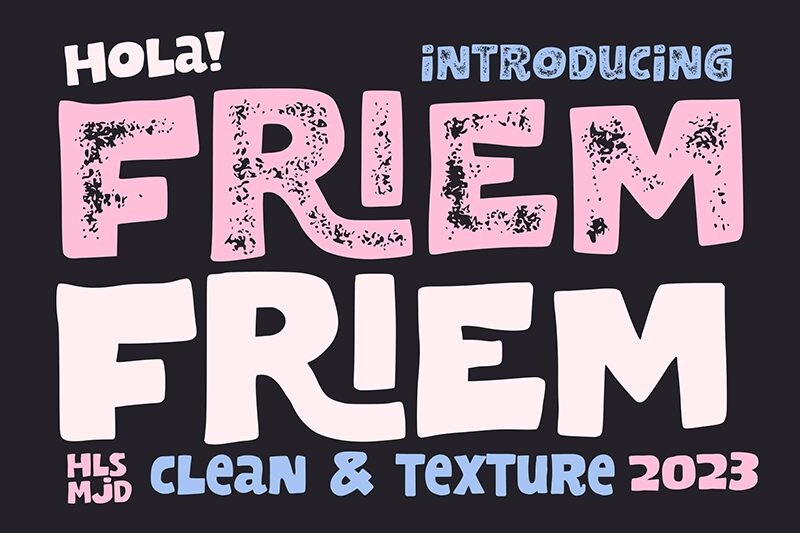
Friem
Friem font by Holisfonts.com is a bold cartoon display, accented by its rounded irregular shapes, casual appearance, and organic feel. A contemporary typographic gem that doesn’t follow rigid typography rules and instead focuses on bringing visual enjoyment to where it appears, mostly in short text.
Use Friem in the fields of branding and packaging or communication campaigns. Use it for posters, magazine covers, Netflix covers, web design pages, apps pages about sections. Consider it also for social media posts (Instagram photo captions), or even mobile/PC games and animated video intro/outro sequences.